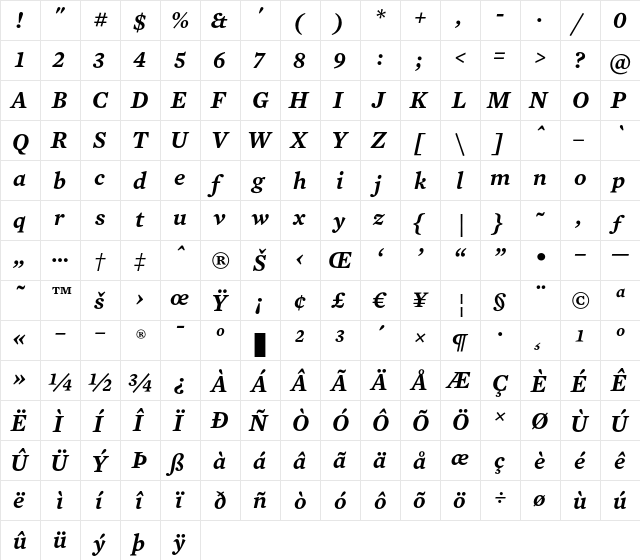
Mercury Text G4 Semibold Italic
Design Context for Mercury Text G4 Typeface
Mercury Text G4 is a composed and adaptable typeface that performs quietly and consistently across a wide range of design contexts. Its italic angle brings a sense of urgency and motion to the letterforms. Its bold stroke weight gives it real presence on the page.
Pro Tip: Try Mercury Text G4 for annotation and caption copy alongside an upright companion — the contrast in angle creates a dynamic but ordered typographic system.